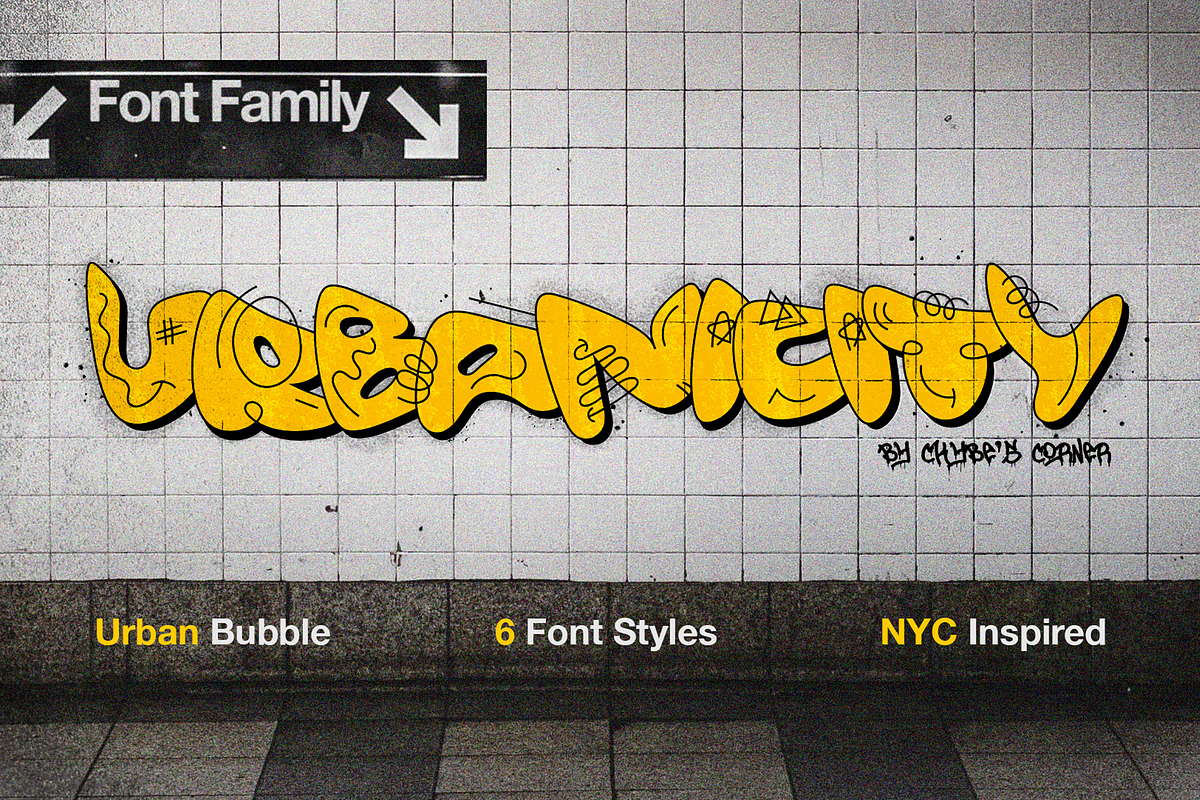
Urbanicity | NY Inspired Bubble Font Free Download is a bold and playful typeface that channels the energy of New York City’s street art and urban culture. With its rounded, bubbly letters and graffiti-style attitude, this font is perfect for eye-catching posters, streetwear branding, music covers, and edgy social media content.
Urbanicity | NY Inspired Bubble Font Free Download brings personality and punch to your designs, making it ideal for projects that aim to stand out with style and creativity. Whether you're designing for a youth brand or creating bold typographic art, this font delivers a fun, urban aesthetic. Download it now and bring that NYC street vibe straight into your next design.